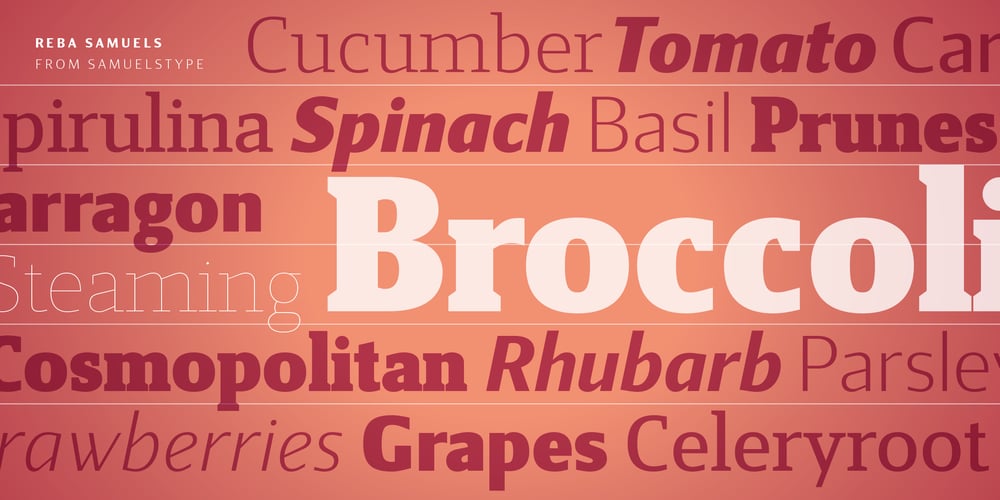
Reba Samuels
Reba Samuels font
Reba Samuels Font Family was designed by Hans Samuelson and published by Samuelstype. Reba Samuels contains 15 styles and family package options. Reba Samuels is based on the 2007 release Rebecca Samuels. While Rebecca was largely intended for text use Reba aims to be more versatile with an extended weight scope and added cut varieties. While Rebecca’s slab character is developed in the Reba serif, the ’seriffed’ italic of Rebecca is abandoned in favor of a simple italic sans, better matching the serif in plain text. The weight extremes are very useful for headlines while the middles do better in text. The robust and angular shapes of the serif matches the straightforward sans. The extreme contrast between the thin and the black cuts opens up great opportunities in any design project.